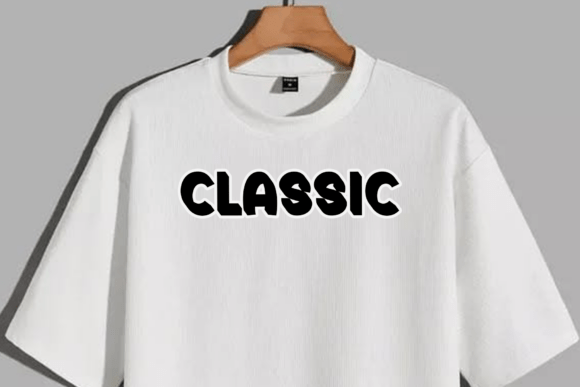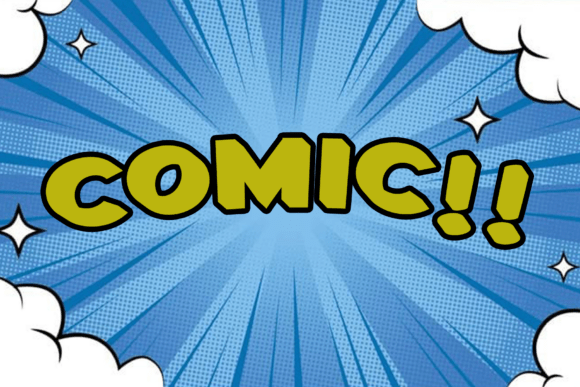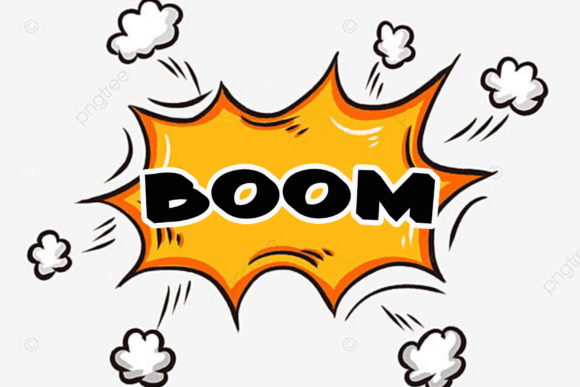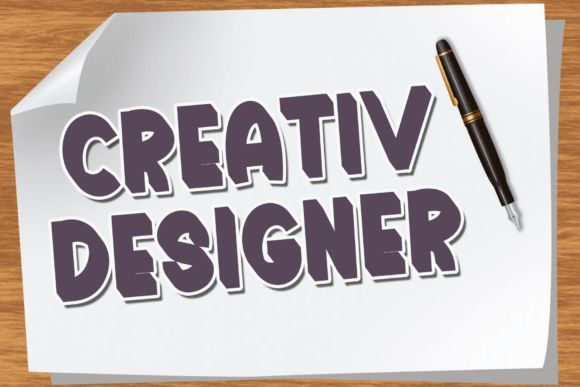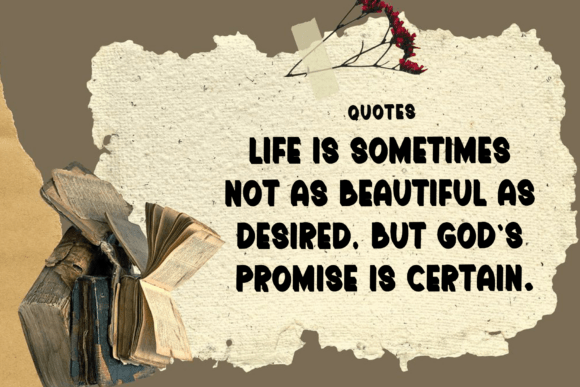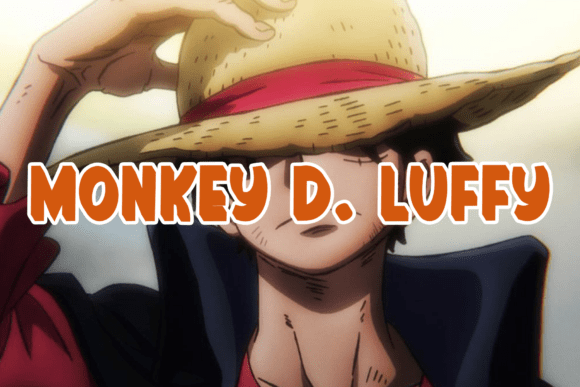
The Delightful Designer Font: Adding Whimsy to Your Designs
I still remember the time I was working on a children’s book project, and I just couldn’t find the right font to match the playful tone of the story. The client wanted something that would appeal to kids and evoke a sense of joy and camaraderie. That’s when I stumbled upon the Designer font, and it was love at first sight! ✨
Designer is a delightful display font that brims with charm and whimsy. Its playful curves and friendly demeanor make it perfect for children’s books, party invitations, or any design project that seeks to radiate warmth and cheerfulness. In this article, I’ll share my honest review of the Designer font, provide a practical guide on how to use it, and explore similar fonts and alternatives.
Honest Review
- ✨ Playful and whimsical design that adds a touch of personality to any project
- ✅ Highly legible, even at large sizes
- 🎉 Extensive OpenType features, including glyphs and stylistic alternates
- 👍 Friendly and approachable feel that’s perfect for kids’ projects or party invitations
While the Designer font is amazing, there are a few things to keep in mind: 🤔
- ⚠️ May not be suitable for body text or long-form content, as it’s primarily designed for display purposes
- ⚠️ Some characters may not be suitable for use at small sizes
The Designer font was created with the intention of bringing joy and whimsy to design projects. According to the designer, the font was inspired by the playful, carefree spirit of childhood and the idea that design should be fun and accessible. The designer’s goal was to create a font that would make designers and their clients smile, and I think they’ve succeeded!
Q: What is the Designer font best suited for?
A: The Designer font is best suited for display purposes, such as headings, titles, or short-form content. It’s perfect for children’s books, party invitations, or any design project that seeks to radiate warmth and cheerfulness.